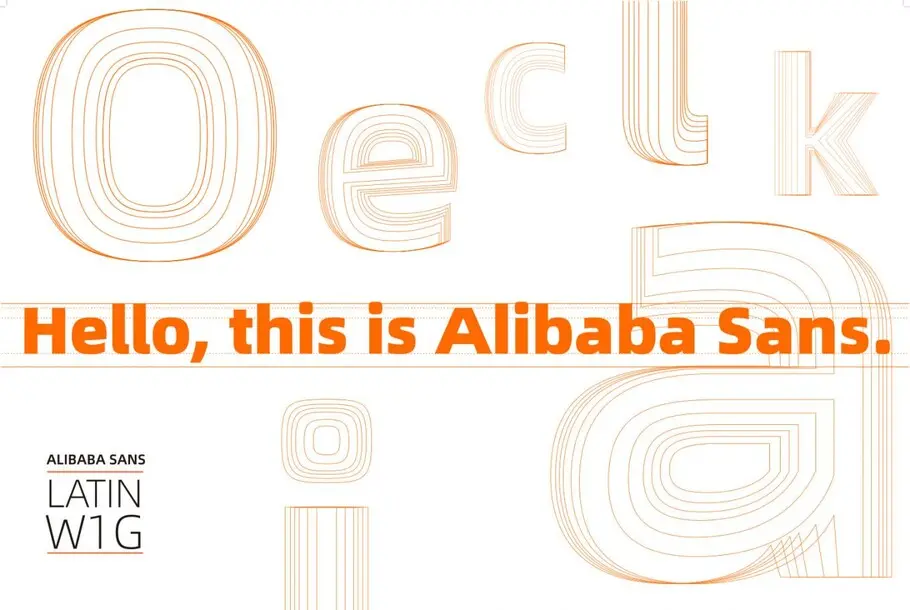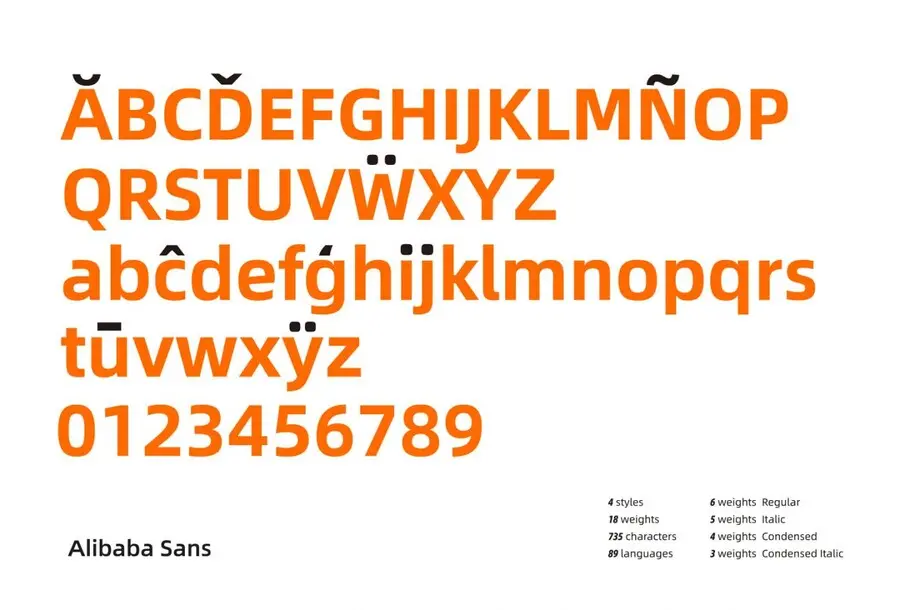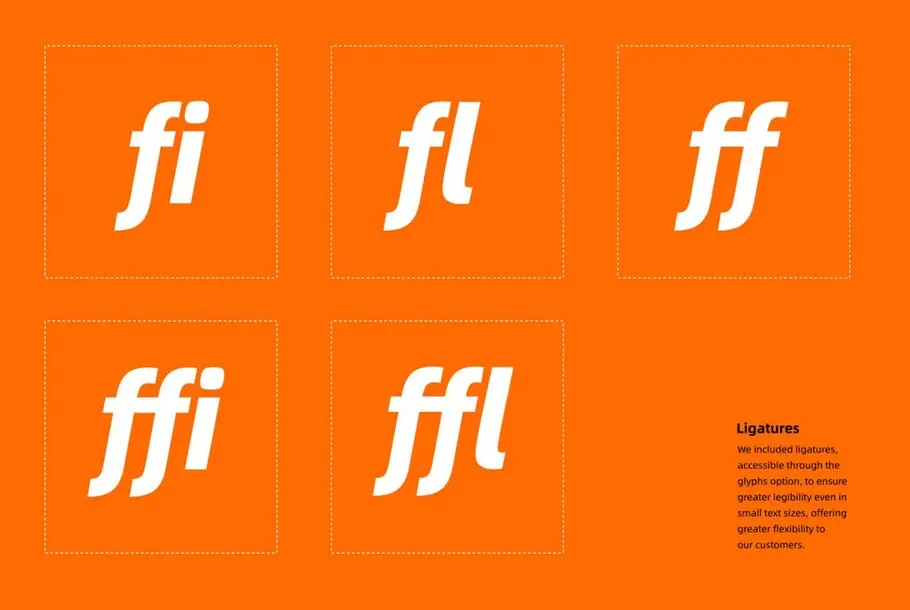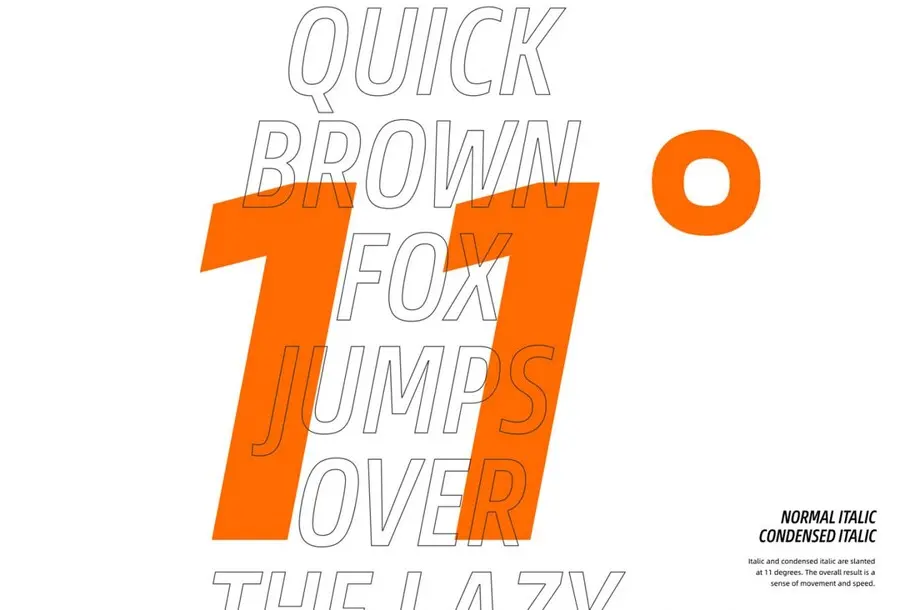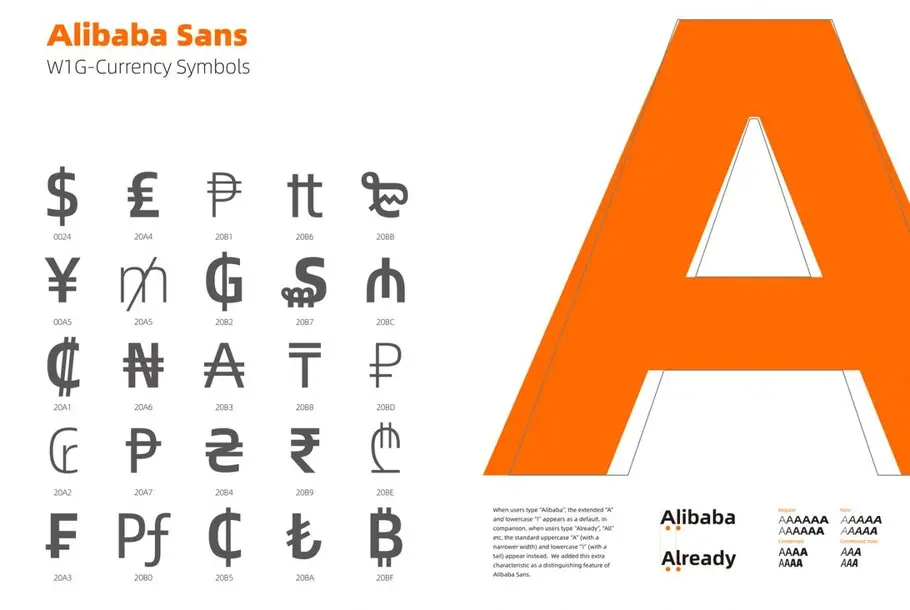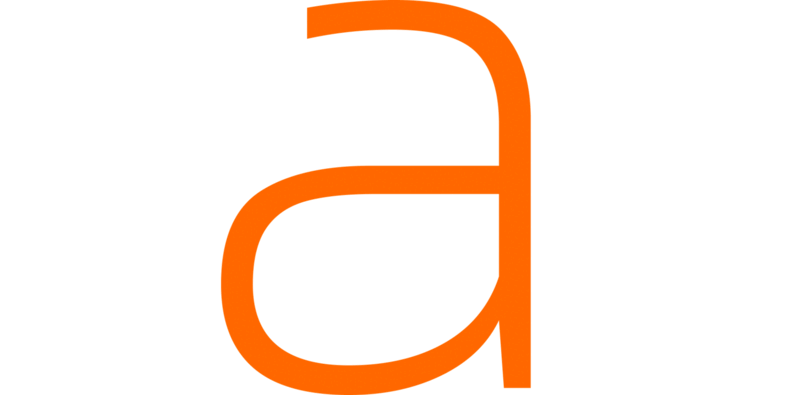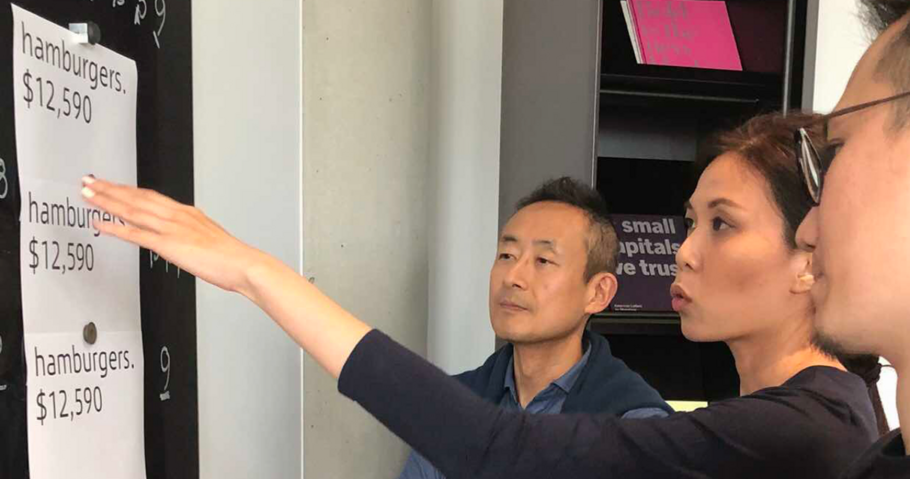
Alibaba Group’s new typeface brings beauty and simplicity to company’s ecosystem.
Key Takeaways
- Alibaba Group introduced a new typeface to unify its brand across global platforms.
- Monotype built a multilingual family supporting scripts like Latin, Arabic, and Chinese.
- Broad script coverage lets you deliver consistent communication to diverse audiences worldwide.
This custom-designed font family, Alibaba Sans, will help partners and customers power on-brand designs.
The challenge
Alibaba Group’s corporate branding team grappled with a variety of design challenges as they were using several different open source fonts—across their creative teams, office locations, and throughout their vast digital partner and supplier ecosystem.
The company’s rapid growth increased the need for a consistent, flexible and innovative typeface family that would allow designers to experiment freely, while staying within brand and IP guidelines. Given the nature of e-commerce and retail as its core business, they required a typeface where the numerals and currency symbols were of paramount importance—not just the letters. Amplifying the challenge, Alibaba Group needed to easily share the branded typeface with colleagues, partners and customers throughout their growing marketplace to create on-brand campaigns
The solution
Leveraging a truly collaborative team effort, the design team members from Monotype and Alibaba Group set in motion a hands-on, design-focused series of multi-day workshops devoted to rapidly developing the new typeface concept that would embody Alibaba Group’s corporate personality.
Monotype’s design team, led by Type Director Akira Kobayashi, began to solve for Alibaba Group’s challenges by first drawing numerals and currency symbols, which was of critical importance to the e-commerce aspect of the business. Drawing numbers and letters from scratch, including the unique lowercase “a,” the team created Alibaba Sans. The fonts had to be pleasing to the eye, even at the heaviest weights, and legible from small to large sizes across any device or location—from display screens, across multiple office campus buildings, to the company gift shop, retail malls and e-commerce sites everywhere
Leveraging the results of a global employee survey designed to capture the most impactful words that employees agree represent Alibaba Group, the designers captured the essence of being “Passionate,” “Powerful” and “Future-Forward” within Alibaba Sans. The custom type family will be launched at Alibaba Design’s UCAN festival on April 27—28, 2019. Through the power of design, businesses will now have a set of complete system fonts, empowering businesses to be “beautiful and simple.”
Results
Internal:
- Deliver consolidated, consistent branding that’s easy to use across the business
- Leverage highest-quality, versatile IP from which to experiment and design beautiful campaigns
- Deploy the typeface to business units rapidly to increase collaboration, speed of design and ROI
- Enable ease of use across all design touchpoints
External:
- Communicate a coherent brand image and company personality
- Eliminate market confusion as customers and partners identify and use the new branded typeface at all touchpoints
- Deliver the new typeface, free to all, to empower on-brand design